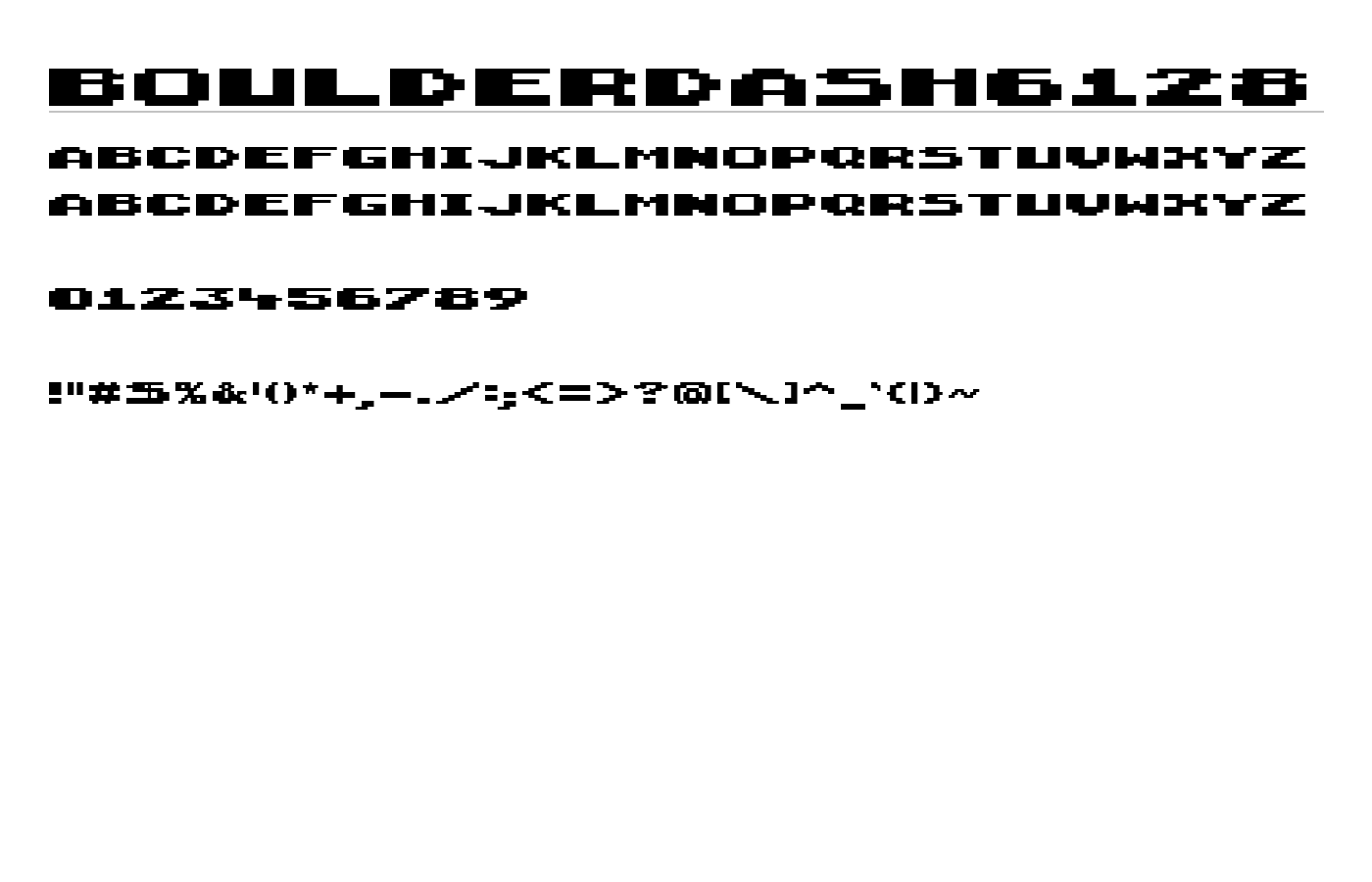
BoulderDash6128 is a bold, blocky pixel-style font with a strong geometric structure and a retro digital feel. Its sharp, squared letterforms and uniform stroke weight make it ideal for vintage arcade games, tech-inspired designs, and eye-catching headlines that demand a nostalgic yet modern vibe. This font works best in digital or print settings where a distinctive, techy atmosphere is desired.
BoulderDash6128 Font
About BoulderDash6128 Font
| Font family | BoulderDash6128 Font |
| Designer | Damien Gosset |